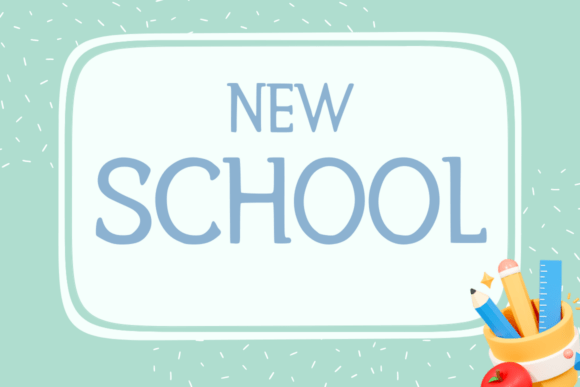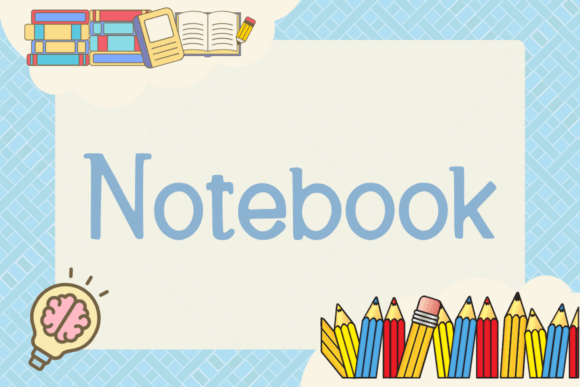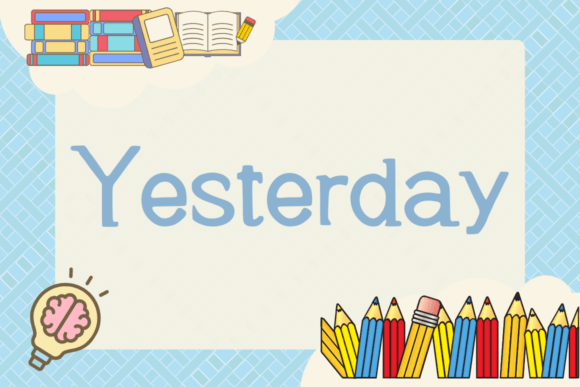
Introduction to Nastare Font
Imagine the thrill of witnessing your creative vision come to life, as you click ‘download’ on a new font that perfectly captures the essence of your project. It’s a moment of pure excitement, and one that designers experience when they stumble upon the perfect design resource. For those seeking to elevate their creative projects, look no further than the Nastare Font – a stunningly fresh and charming typeface that radiates finesse and vibrancy.
With its playful yet formal touch, the Nastare Font effortlessly complements a wide range of designs, from business projects to personal creative endeavors. Whether you’re working on a high-quality brochure or a website with a transparent background, this font is sure to elevate your aesthetic appeal and leave a lasting impression. As a valuable addition to your design arsenal, the Nastare Font is now available for free download, waiting to bring your creative vision to life.
Key Features of Nastare Font
- High-quality design resource ideal for creative projects, offering a unique and modern aesthetic.
- Perfect for use in graphic design, digital art, and other creative projects where a unique and stylish font is required.
Honest Review: Nastare Font
As a designer, I’m always on the lookout for high-quality fonts to elevate my creative projects. The Nastare Font is a free download that has piqued my interest, and I’m excited to share my honest review.
What works well: ✨ The Nastare Font offers a modern and elegant design, perfect for a variety of design resources such as logos, posters, and websites. The font’s transparent background allows for seamless integration with other design elements, making it a great addition to any creative project. Additionally, the font’s high quality ensures that it will look great on any screen or print medium.
What doesn’t work well: ⚠️ While the Nastare Font is a great addition to any design arsenal, it’s not without its limitations. The font’s limited character set and lack of language support may be a hindrance for designers working on projects that require extensive text. Additionally, the font’s free status may come with limitations on commercial use.
Overall, I’m impressed with the Nastare Font’s potential and would recommend it to designers looking for a high-quality, modern font. However, designers should be aware of its limitations and use it accordingly.
Nastare Font
To get the most out of the Nastare Font, use it for graphics with a transparent background to create a clean and modern look. You can also pair it with other fonts to create a unique design.
The Nastare Font is ideal for creative projects such as infographics, social media graphics, and presentations. It’s also great for use in logos, branding materials, and other design assets.